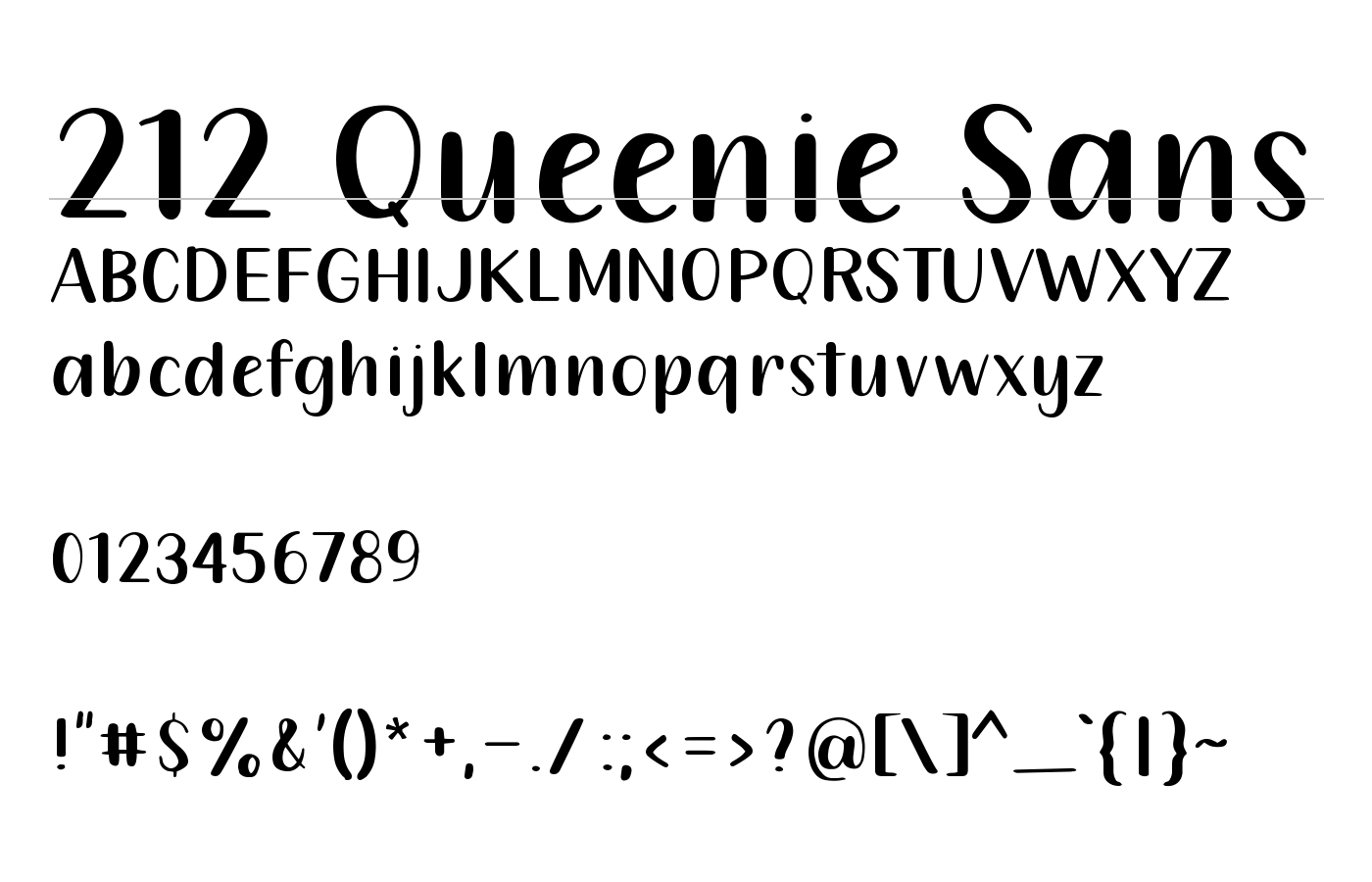
212 Queenie Sans is a playful and elegant sans serif font with a touch of whimsy, characterized by its gentle stroke contrast and slightly irregular, hand-crafted feel. Its tall x-height, unique letterforms, and soft curves make it ideal for creative branding, children's books, and casual yet sophisticated headlines. This font works well in design projects that need a friendly, approachable personality while maintaining readability and charm.
212 Queenie Sans Font
About 212 Queenie Sans Font
| Designer | Elizabeth McLain |